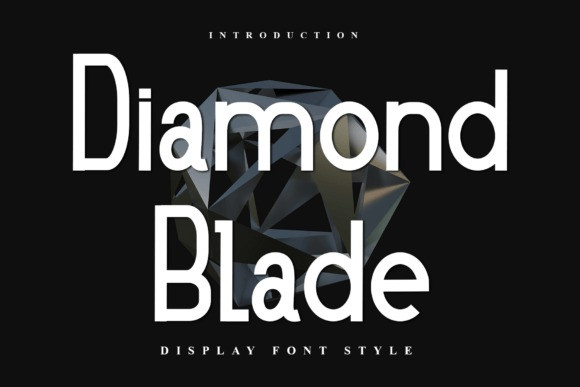
Diamond Blade Font
Diamond Blade Font is a clean, modern display font that balances geometric precision with a sophisticated, professional edge. The typeface features tall, slender letterforms with a consistent monolinear weight and slightly rounded terminals, giving it a sleek and organized appearance.
Its high x-height and narrow proportions ensure high impact and legibility for headers. This font is a versatile choice for minimalist architectural presentations, technology branding, corporate title sequences, and contemporary lifestyle marketing.